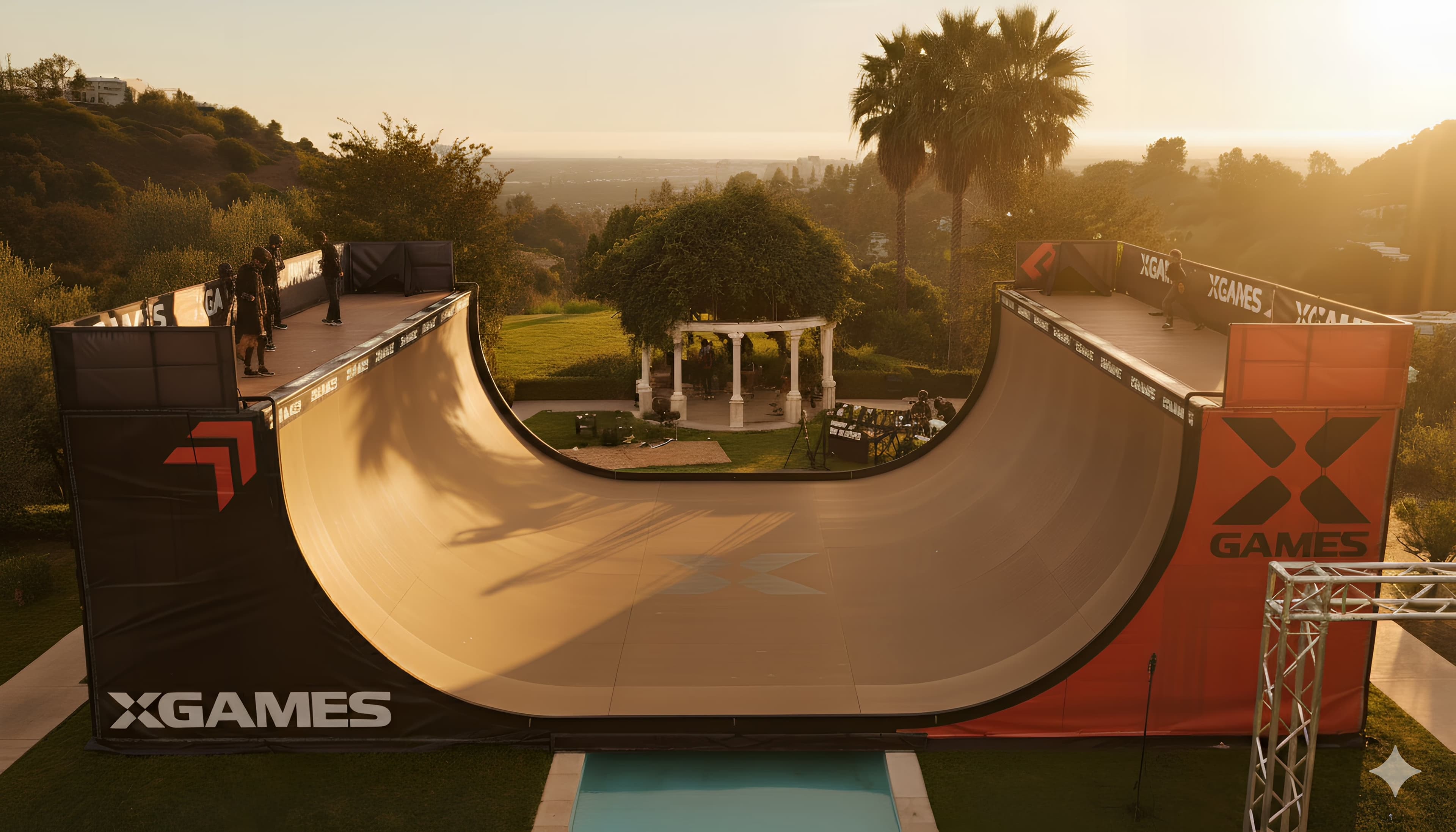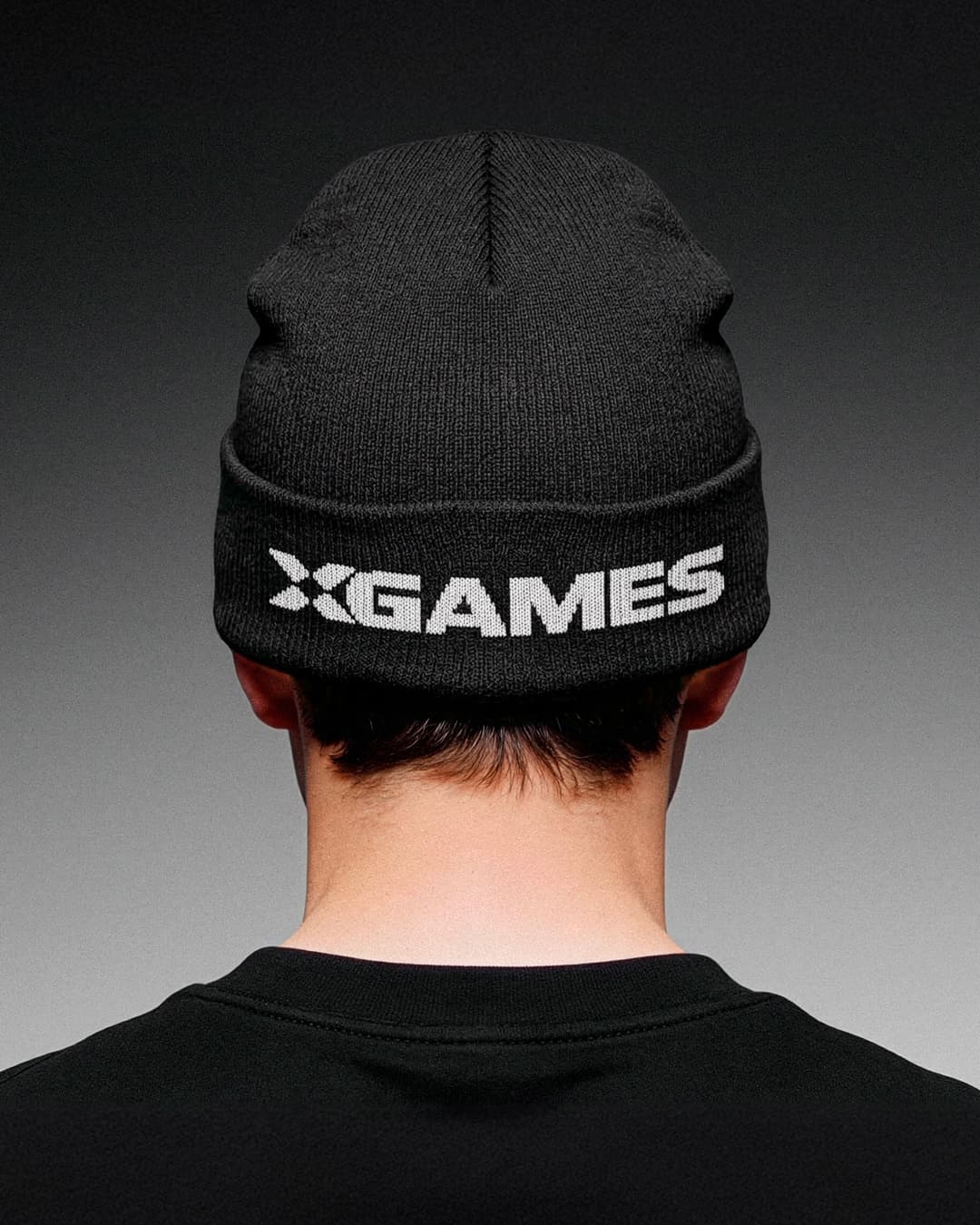
Record Laser in use for X Games
Different times calls for different approaches. The undisputed leader in extreme sports brings its logo to a new digital ecosystem.
Founded by sports media conglomerate ESPN, the X Games enlisted the team at WKNDHRS Studio, who—alongside notable contributions from designers including Noé Garsoux and Manas Trivedi—developed an entirely new visual system.
— More than just an update the rebrands unravels a full fresh visual style one kickflip at a time 🛹
Their brand identity features Record Laser as the primary wordmark. With its sharp, unapologetically retro-futuristic aesthetic, delivers a high-impact presence that mirrors X Games velocity and adrenaline.